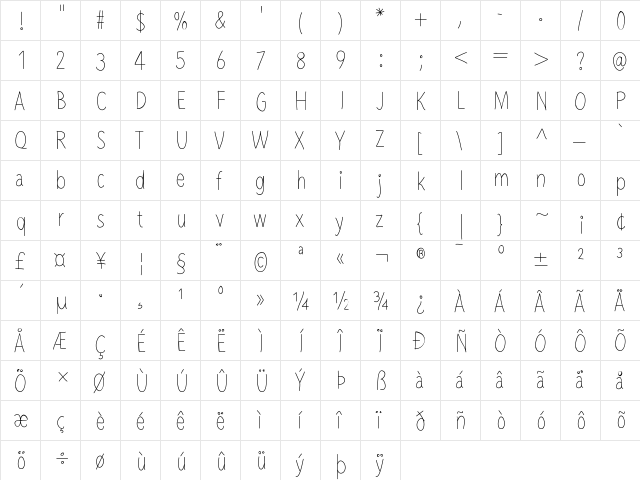
paperfont1 Medium
Design Context for paperfont1 Typeface
paperfont1 takes a measured approach to typography — its balanced proportions and neutral character make it a reliable workhorse for both digital and print work.